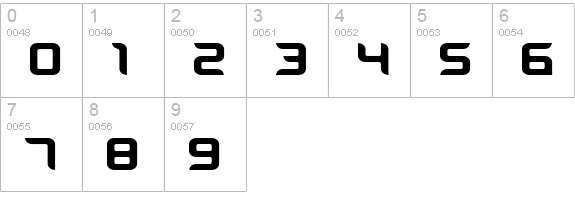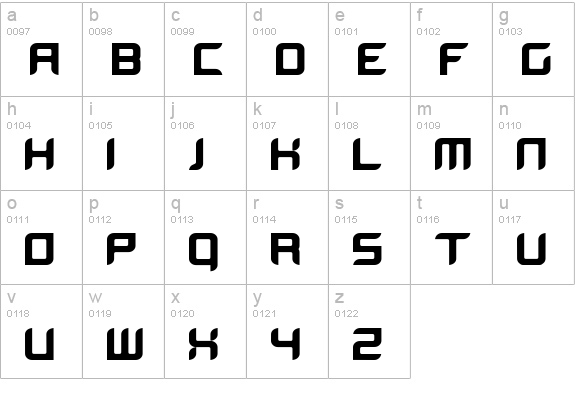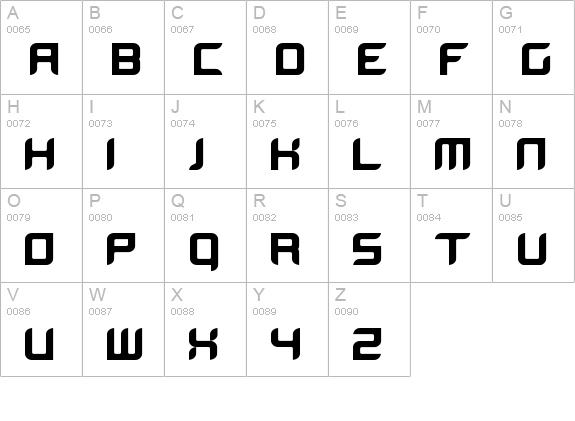
BloodWax Font Details
Introducing BloodWax font, a striking and bold typeface that exudes power and intensity. With its sharp edges and edgy design, BloodWax is perfect for making a statement in your designs. This unique font combines elegance with a touch of darkness, making it ideal for projects that require a bold and impactful look. What sets BloodWax font apart is not only its stunning design but also the fact that it is completely free to download. Yes, you read that right - this incredible font is freely available for download at FontsMarket.com. So whether you're working on a poster, logo, branding materials, or any other creative project, BloodWax font is the perfect choice to add a touch of drama and sophistication. Don't miss out on this opportunity to enhance your designs with the striking BloodWax font. Download it now for free and let your creativity shine!